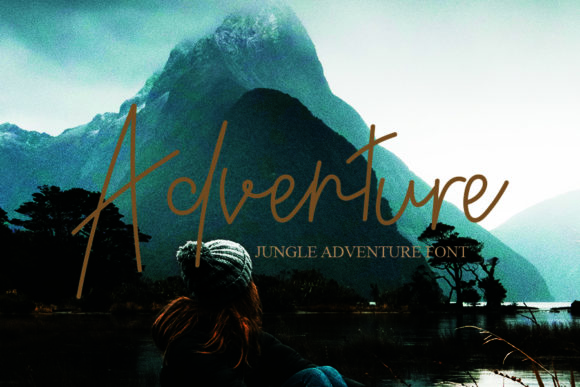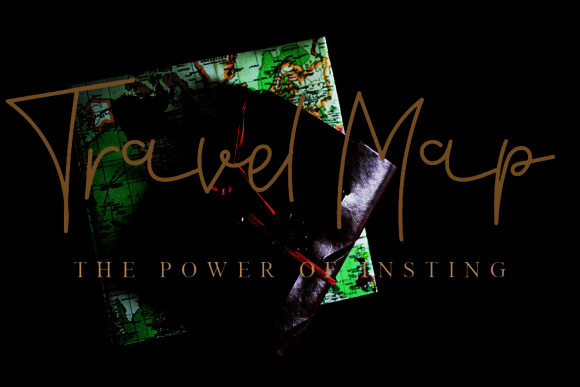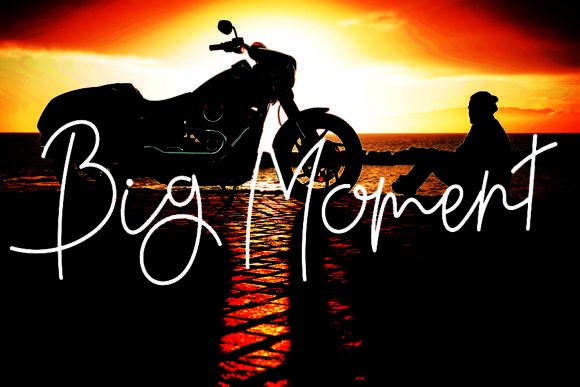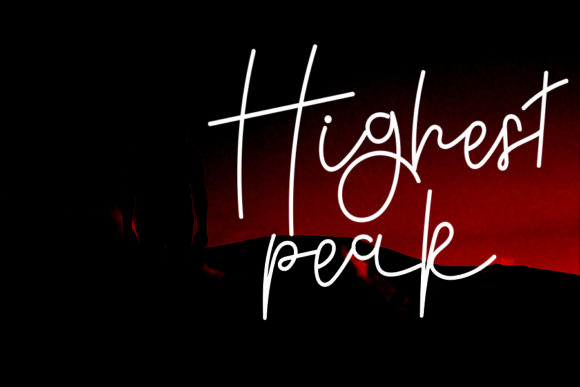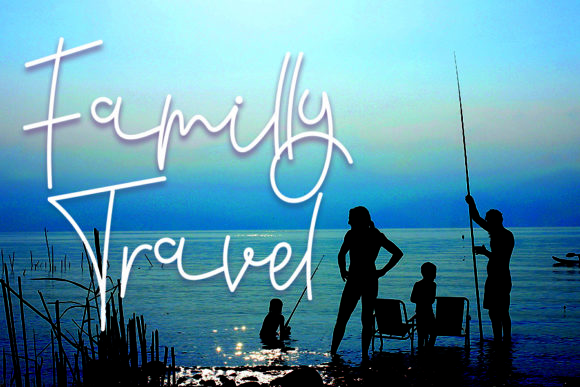
About Adventure Font
Introducing “Adventure,” a flowing handwritten font characterized by an elegant touch that embodies the spirit of exploration and creativity. Its captivating beauty makes it an ideal choice for a wide range of design projects, infusing a touch of handcrafted elegance into every creation. Whether you’re working on invitations, quotes, branding materials, or any other design, “Adventure” will sweep you off your feet with its distinct and timeless allure.
With “Adventure,” you have a font that flows with grace and creativity. Its handwritten style brings an air of authenticity to your designs, creating a visual experience that is both elegant and captivating. Whether you’re crafting invitations with a touch of whimsy, quotes with a dash of inspiration, or branding that exudes adventurous spirit, this font adds a layer of elegance that resonates with your audience.
“Adventure” is characterized by its distinct and timeless appearance, making it a versatile companion for your creative endeavors. Its ability to seamlessly complement various design styles and themes is truly remarkable.
Unleash your creativity and witness how “Adventure” elevates your designs with its elegant and flowing touch. Whether you’re creating captivating logos, designing wanderlust-inducing stationery, or producing eye-catching social media graphics, this font will infuse your work with a sense of beauty and authenticity that captures the essence of adventure.
So, embrace the allure of “Adventure” and let it inspire your creative journey. Allow its flowing and elegant style to guide your designs, transforming them into spectacular works of art. Whether you’re an experienced designer or a passionate enthusiast, “Adventure” empowers you to create visuals that ignite imagination and make a statement. Let “Adventure” be the key to unlocking a world of creativity and elegance in your designs, and watch as it propels your projects to new horizons of refinement and excellence!